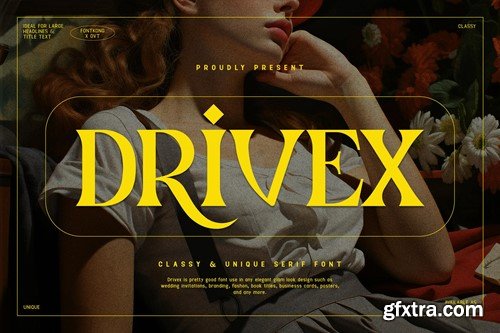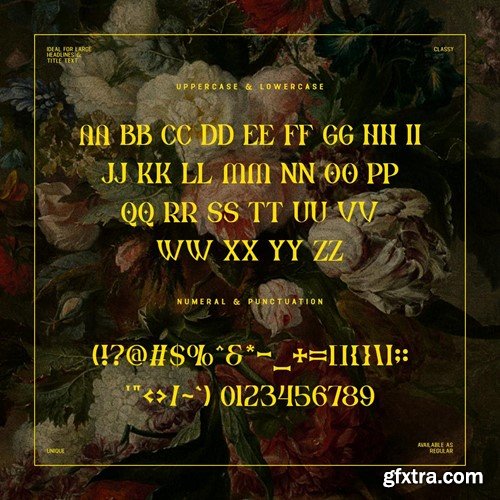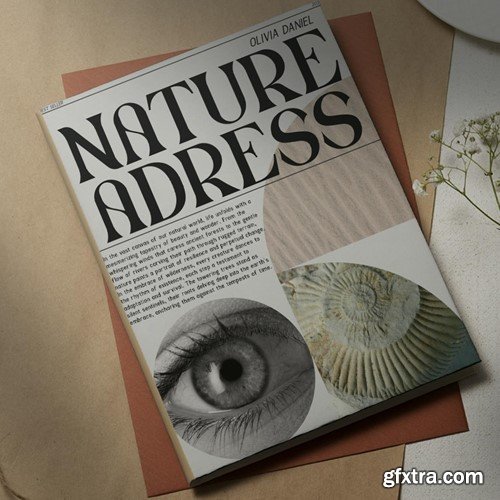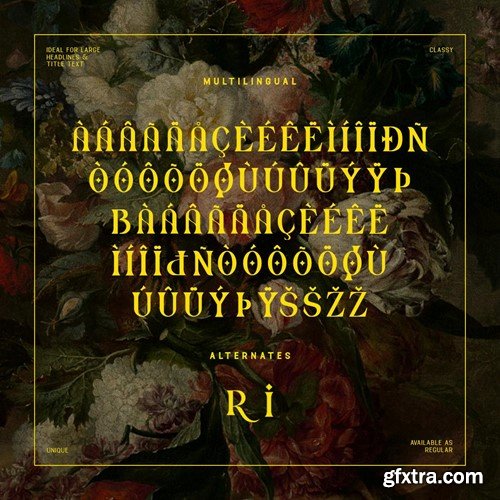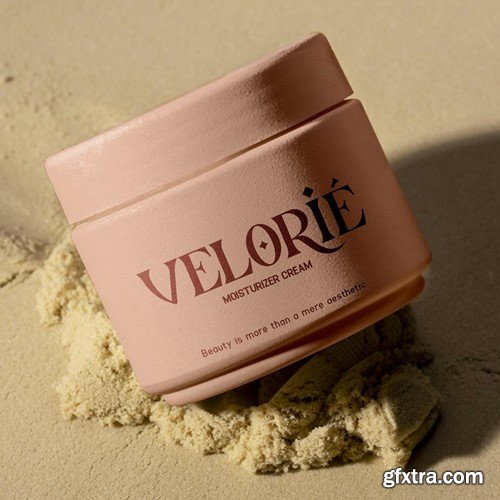
Drivex - Classy and Unique Serif Font Unveil the elegance of "Drivex," a serif font that embodies class and uniqueness in every curve and stroke. Crafted with meticulous attention to detail, Drivex offers a blend of timeless sophistication and individuality, making it the perfect choice for a wide range of design projects. You will receive the font files in TTF, OTF, and WOFF formats With its distinctive serifs and refined forms, Drivex exudes a sense of refinement and charm. Whether you're designing editorial layouts, branding materials, or digital designs, this font commands attention and leaves a lasting impression. Featuring a unique character set, Drivex stands out with its individuality and versatility. Its classy demeanor and distinctive flair make it suitable for projects that demand elegance and style. Elevate your typography to new heights with the timeless sophistication and unique charm of Drivex.